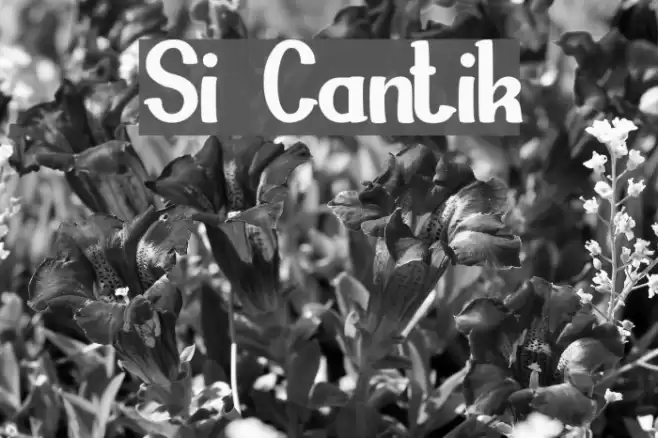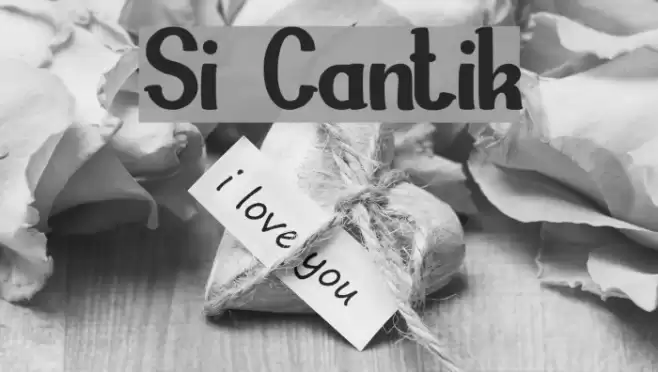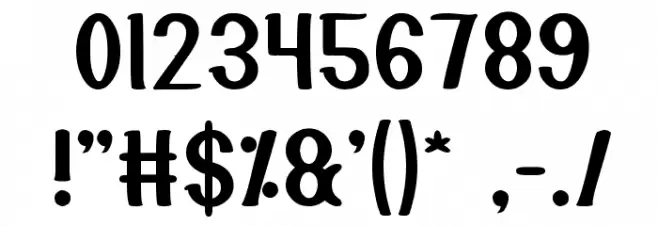
Si Cantik Font
Si Cantik Description
This font features a playful and whimsical style with rounded, bold characters that convey a sense of fun and creativity. The uppercase letters are slightly taller and more pronounced, while the lowercase letters maintain a consistent, rounded appearance. The numbers and special characters follow the same playful design, making them easily recognizable and visually appealing. The overall look is casual yet bold, making it suitable for projects that require a touch of personality and flair.
A playful, bold font with rounded characters and a whimsical style from Uncategorized fonts.
- Proposed Projects: Ideal for children's books, playful branding, greeting cards, and creative posters.
- Overall Style: Playful